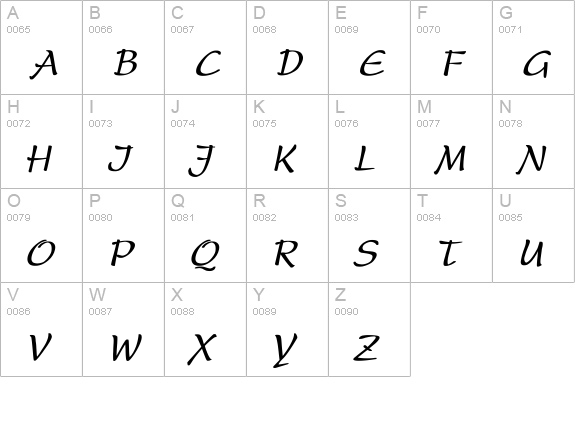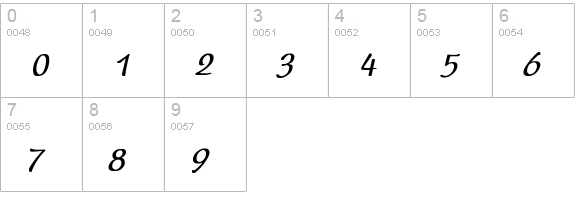
Present Cn Bold Italic is a strong, high-contrast, italic variant in the Present typeface family \xE2\x80\x94 well suited to headlines, attention-grabbing titles, and strong calls-to-action.
Present Cn Bold Italic font is a stylish and modern typeface that exudes confidence and sophistication. Its bold and italic design adds a touch of elegance to any project, making it perfect for headlines, titles, and branding materials. The sleek curves and sharp angles of this font create a dynamic and eye-catching look that will captivate your audience. What's even better is that Present Cn Bold Italic font is available for free download at FontsMarket.com. You can easily access this high-quality font and elevate your design projects without any cost. Don't miss out on the opportunity to add this versatile and striking font to your collection today!